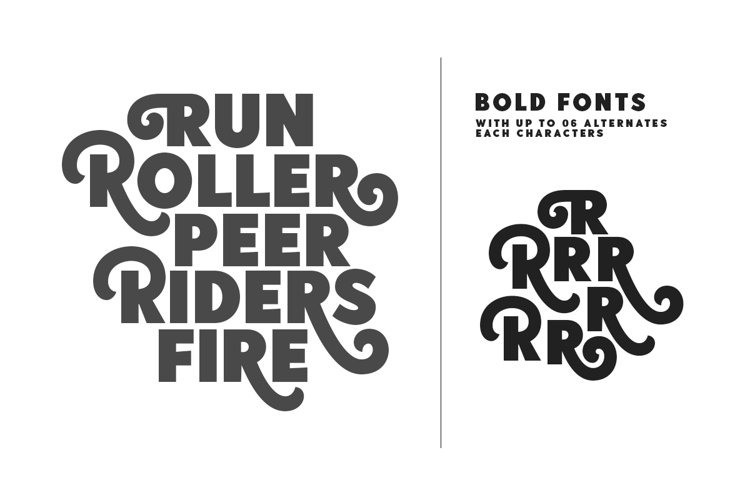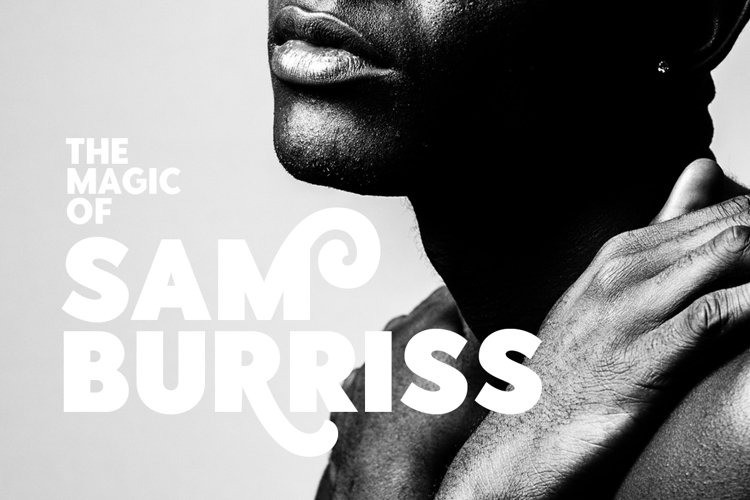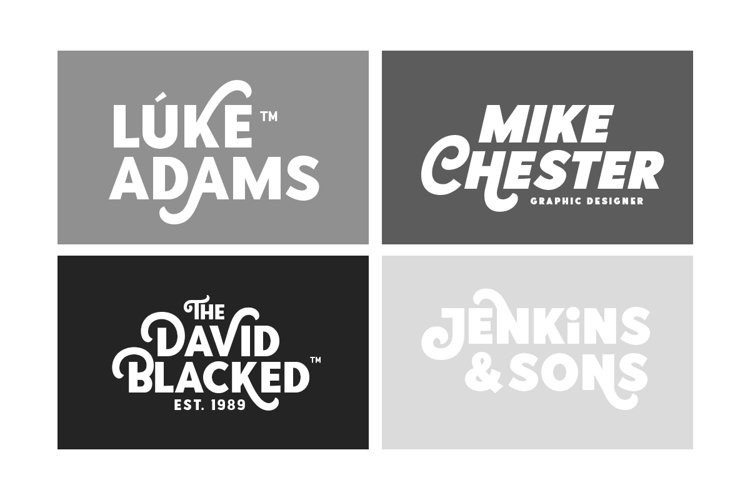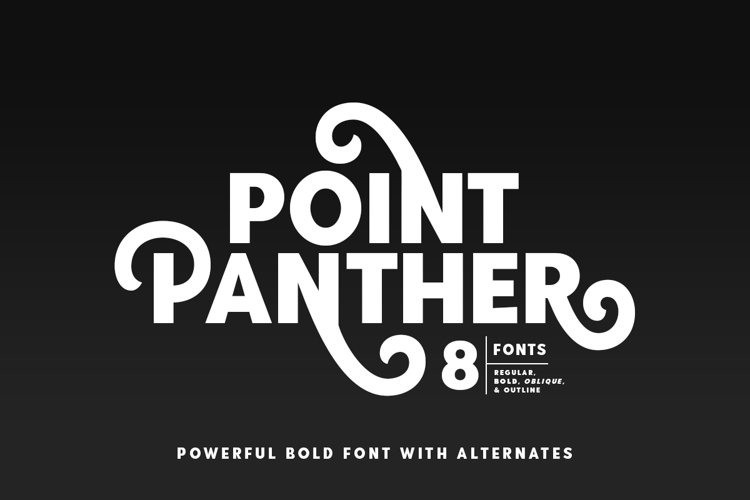
Point Panther Sans Serif Font
This is a contemporary typeface sans-serif typeface designed to give a fresh extended look. You can make a unique branding with this fonts. this powerful bold fonts also included italic and outline style! This fonts suitable to use for poster, branding, merchandise, and any street art style! Also support multilingual.